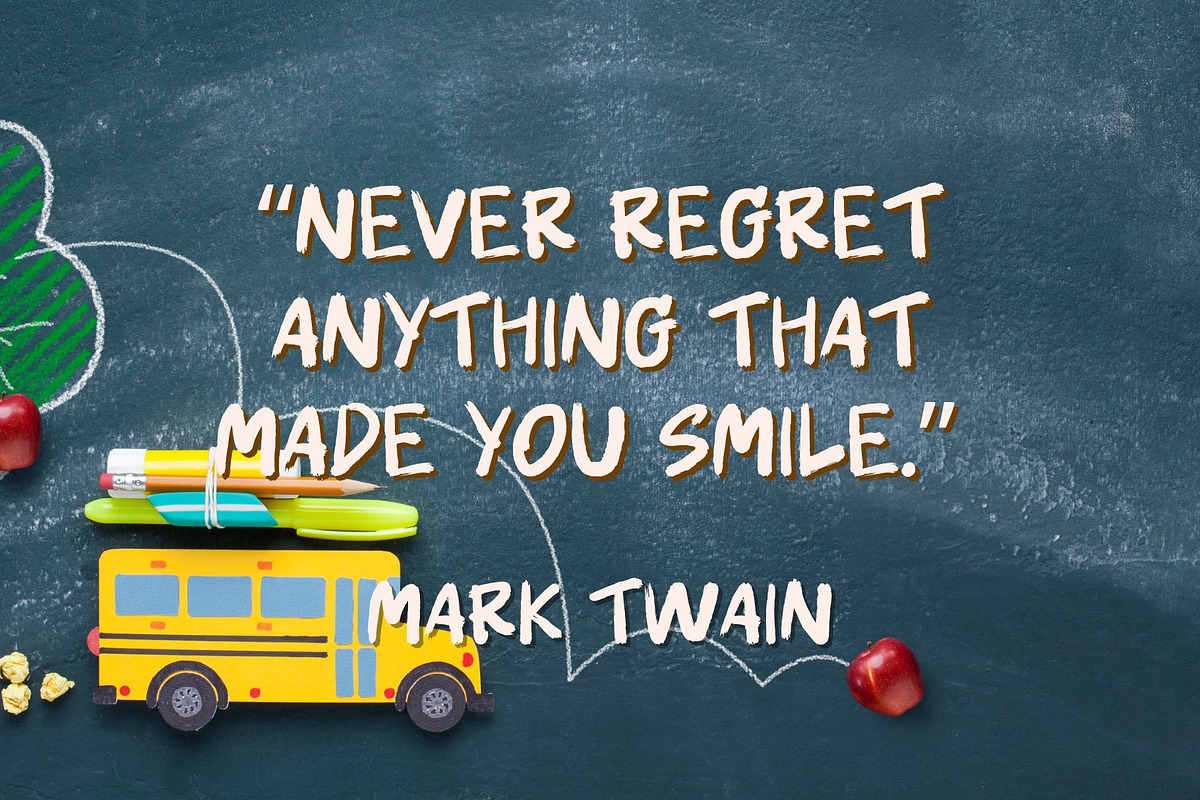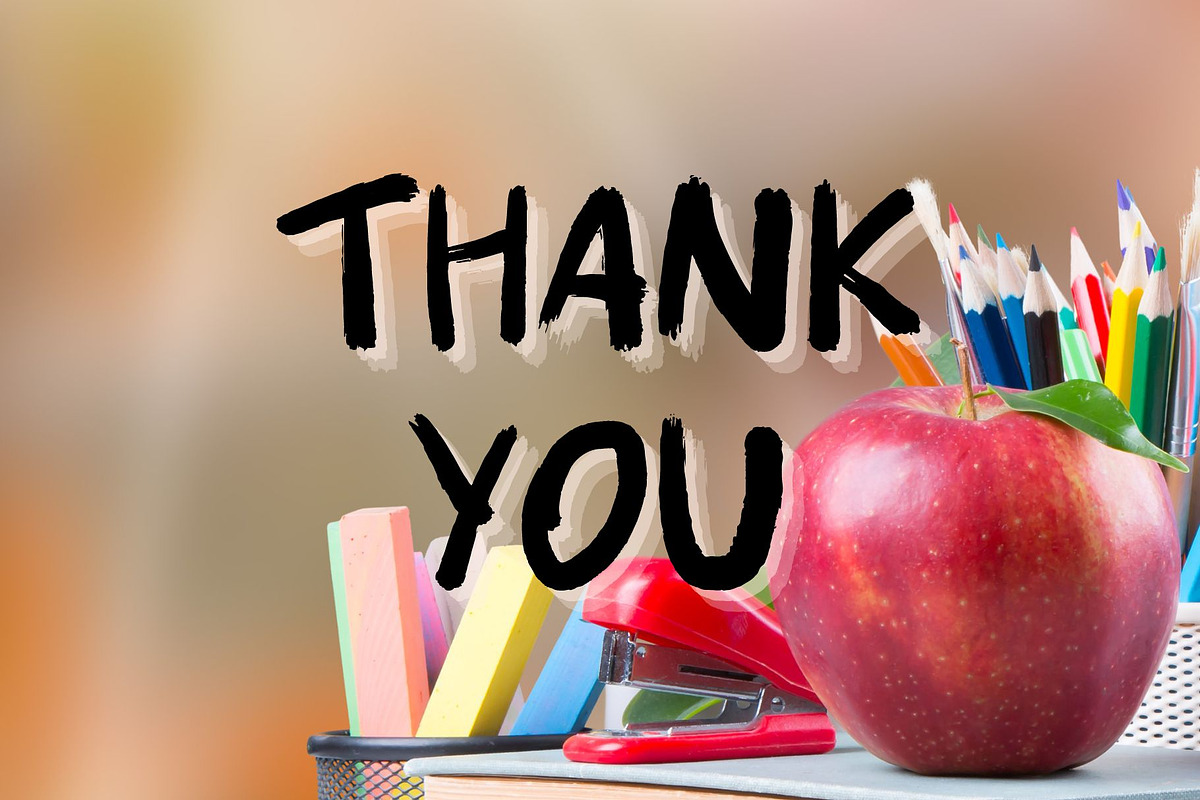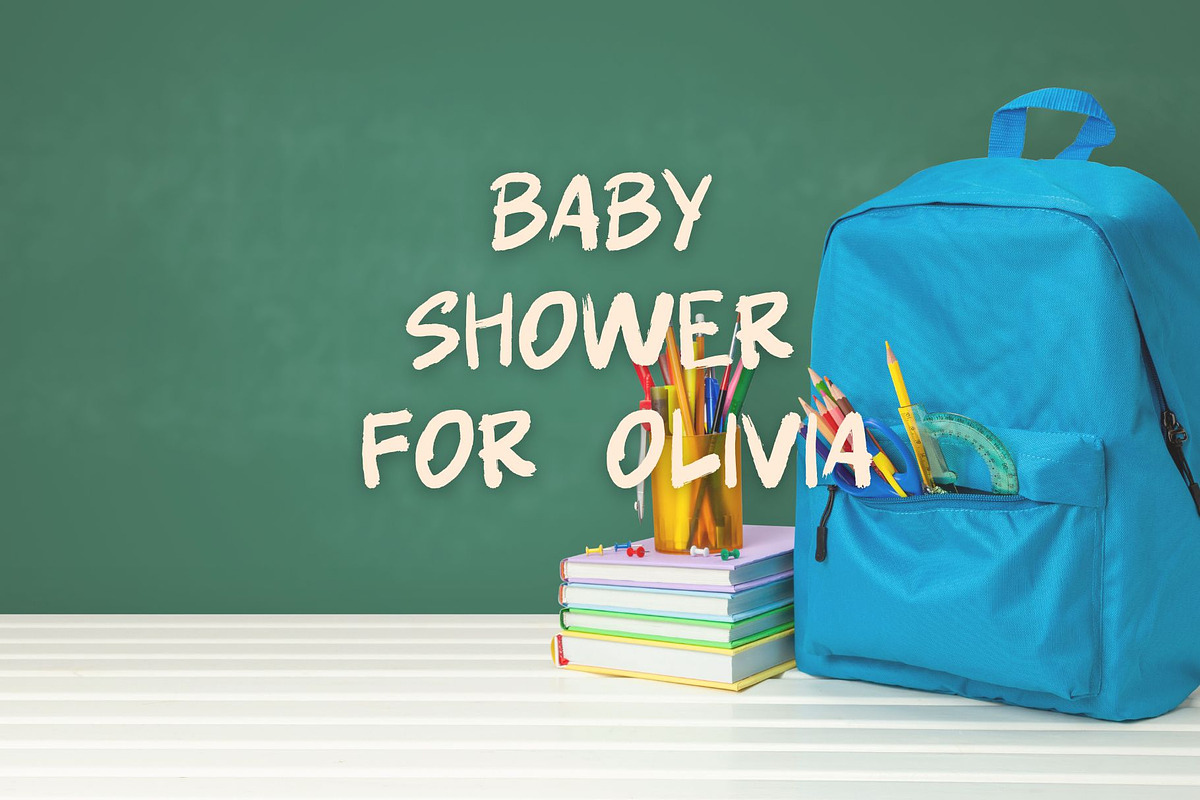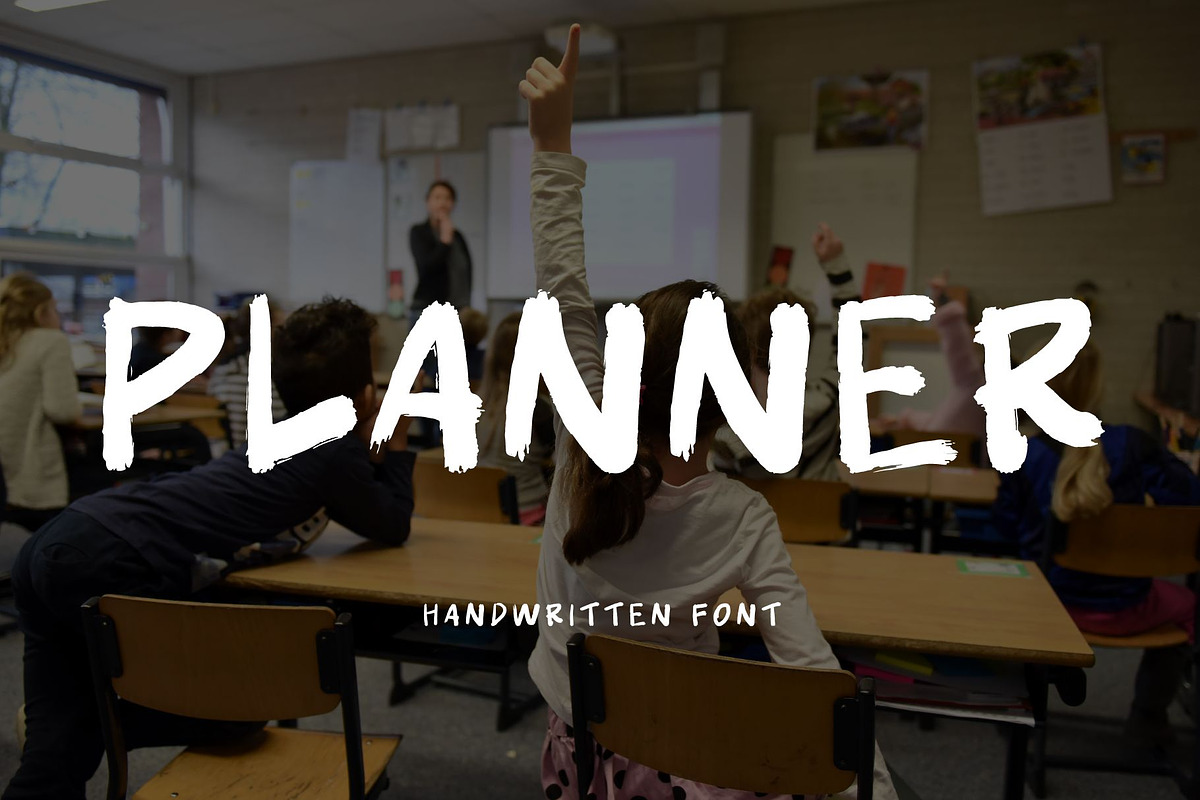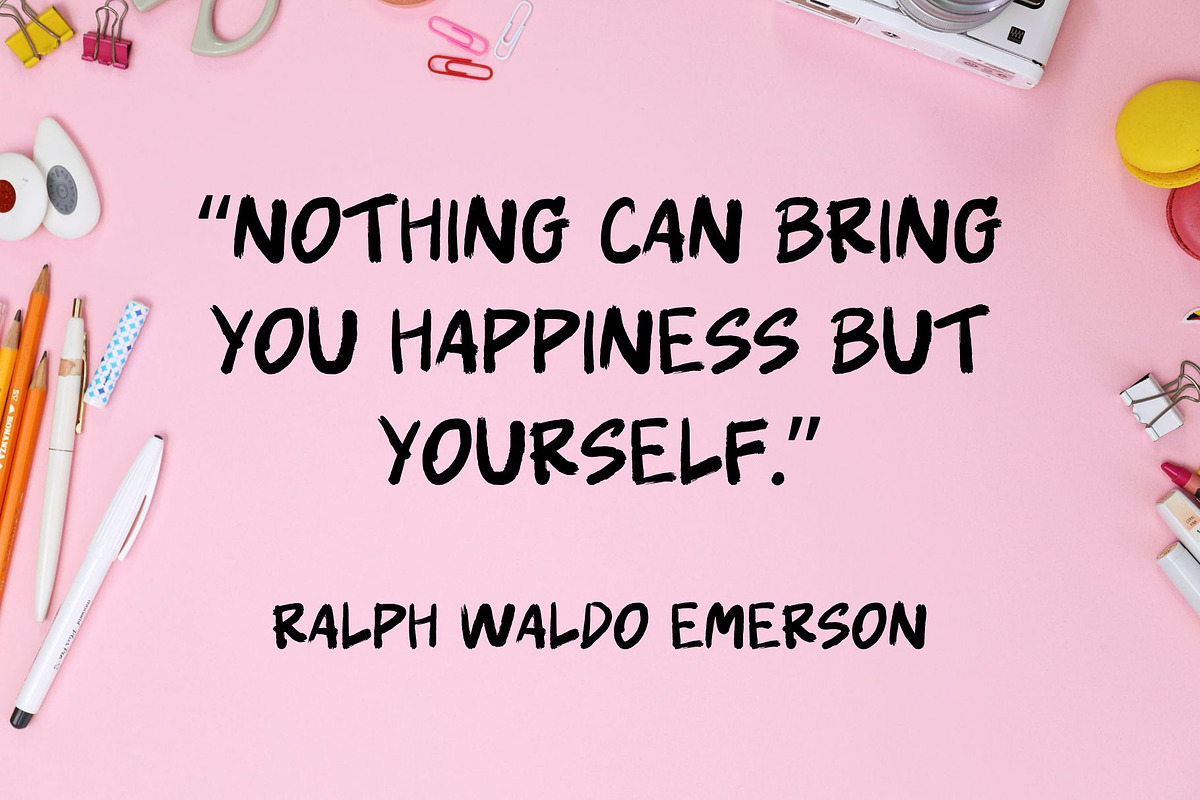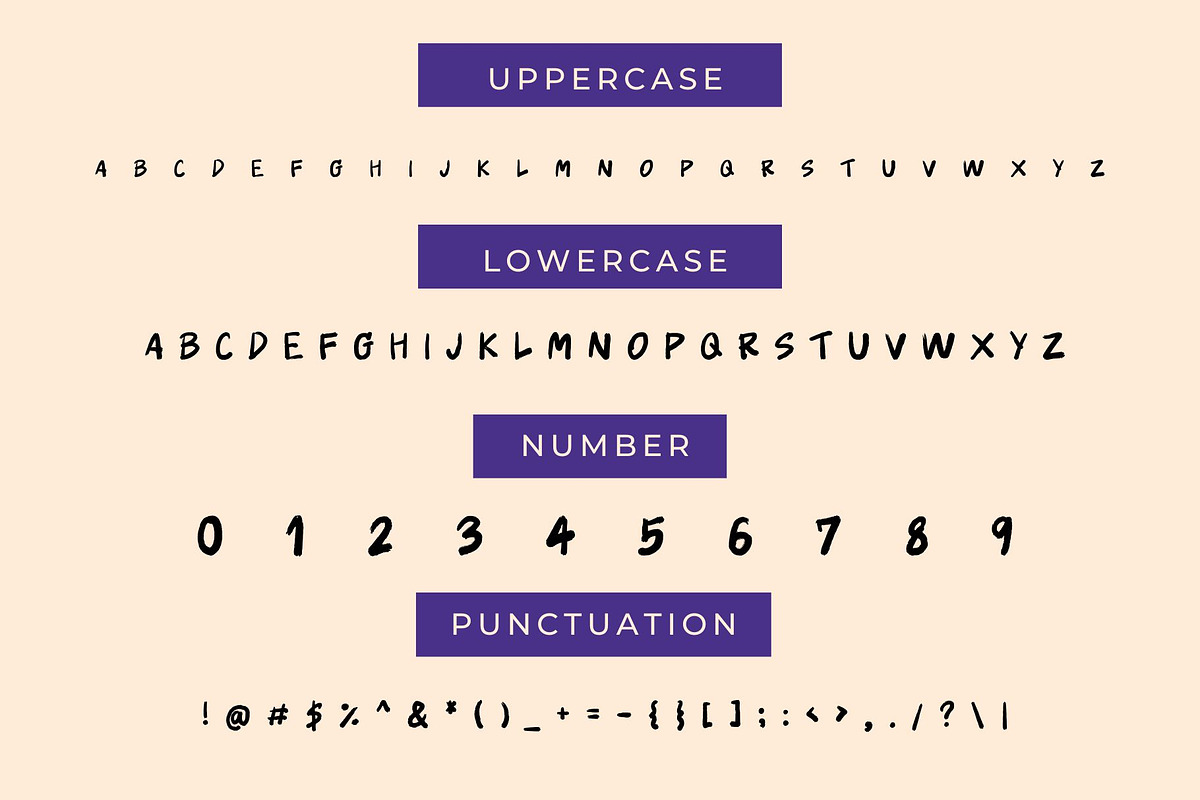
Planner is a brush font
Planner is a cute and handwritten font. The lightness of its characters makes it suitable for a wide range of design projects. It embodies playfulness and authenticity and is the perfect choice for all your favorite projects, or even for blog posts, logos, branding, ads, invitations, greeting cards, planners, photo albums, decorations, and much more. Add it to any of your designs, and enjoy the results!